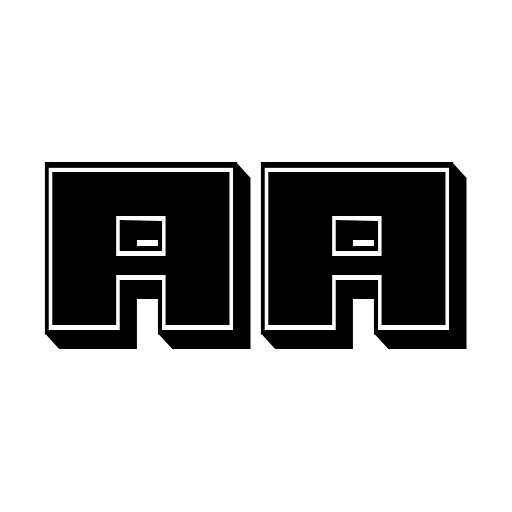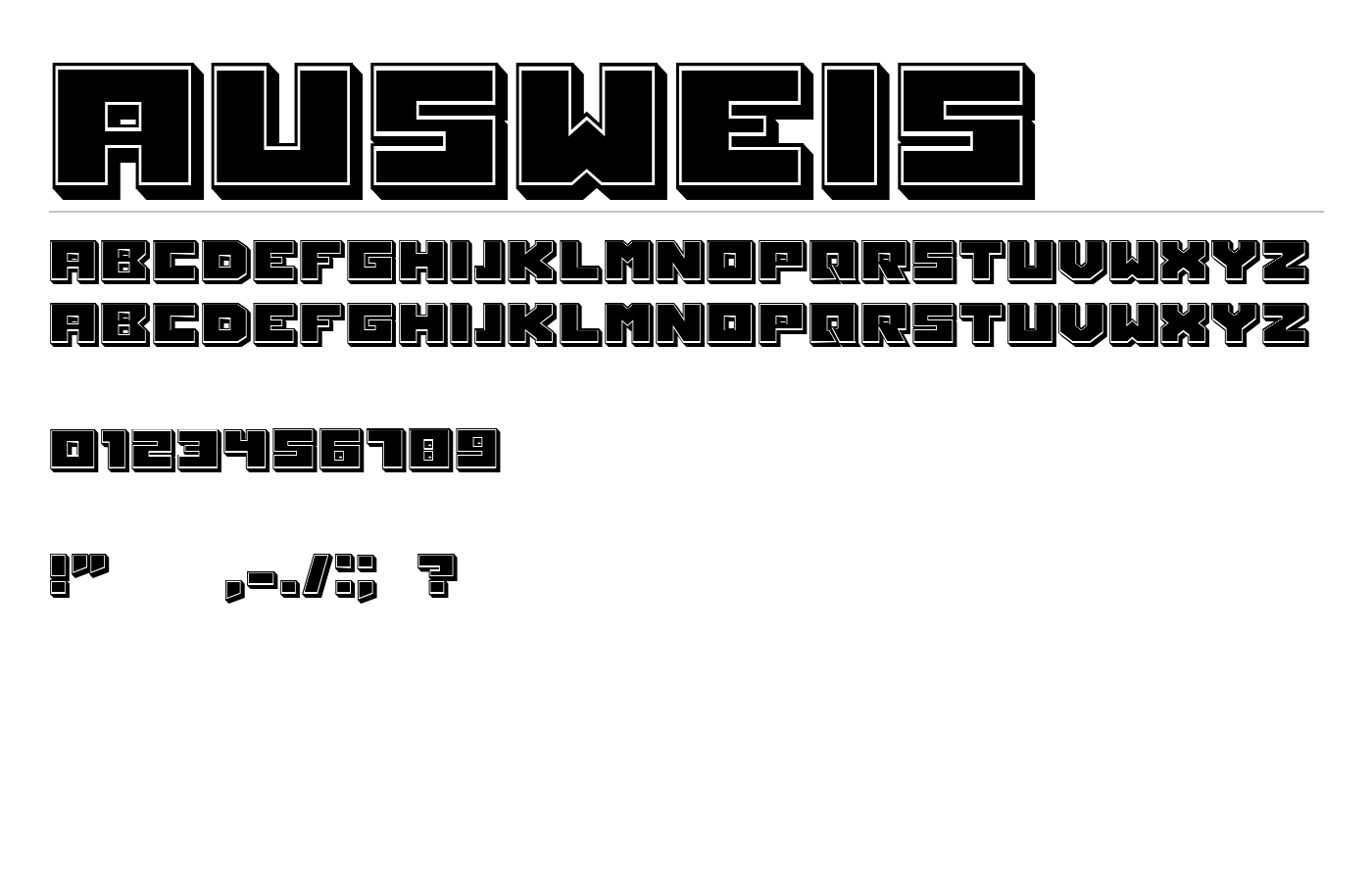
Ausweis is a bold, geometric display font characterized by its strong block shapes and three-dimensional shadow effect, giving it a striking and futuristic look. With its uppercase-only letters and unique angular forms, it works great for eye-catching headlines, logos, and posters where a modern, tech-inspired vibe is desired. This font’s heavy weight and sharp edges make it less suited for body text but perfect for designs that need to stand out boldly.
Ausweis Font
About Ausweis Font